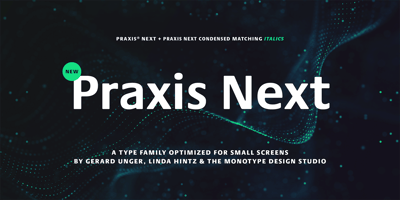
Praxis Next Font Family was designed by Gerard Unger, Monotype Design Studio, Linda Hintz and published by Linotype. Praxis Next contains 36 styles and family package options. Praxis® Next has the same robust shapes and proportions as the original 1976 Praxis design. Its large x-height, substantial counters and open apertures guarantee high levels of legibility and reading ease in print and on screen. More weights, condensed designs and true cursive italics differentiate Praxis Next from the older design. Praxis Next shines where space is at a premium. The regular designs are modestly narrow while the condensed typefaces perform with grace in the most crowded of environments. The bold designs create powerful headlines and banners and the lighter weights are ideal for both long and short-form text copy. Because of its many weights and proportions, Praxis Next is also an ideal design to build a brand identity.Praxis Next Variables are font files which are featuring two axis and have a preset instance from Light to Ultra and Condensed to Roman. Pair Praxis Next with old-style designs like Bembo® Book and Stempel Garamond™ to create a dynamic typographic contrast. Or complement the design with its serifed counterpart, Demos® Next. Unger also drew ITC Flora® as an alternative italic design. Looking for something a little different? Pair Praxis Next with Masqualero™.